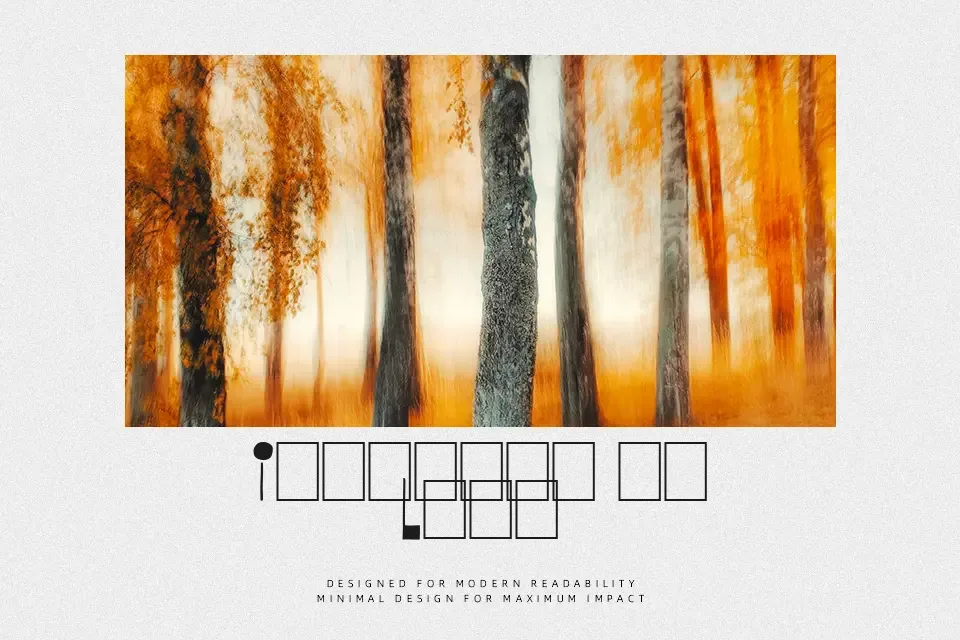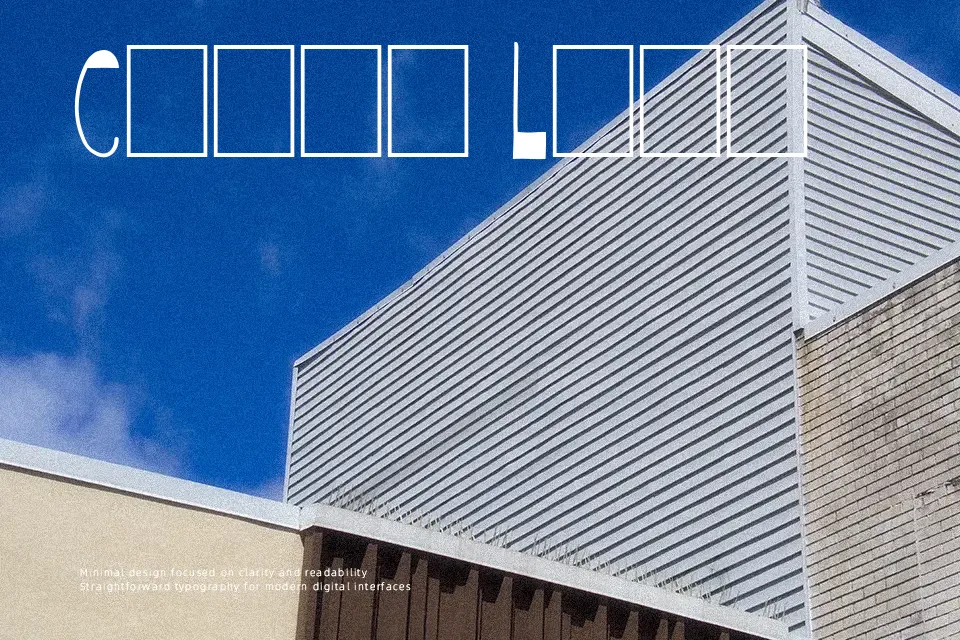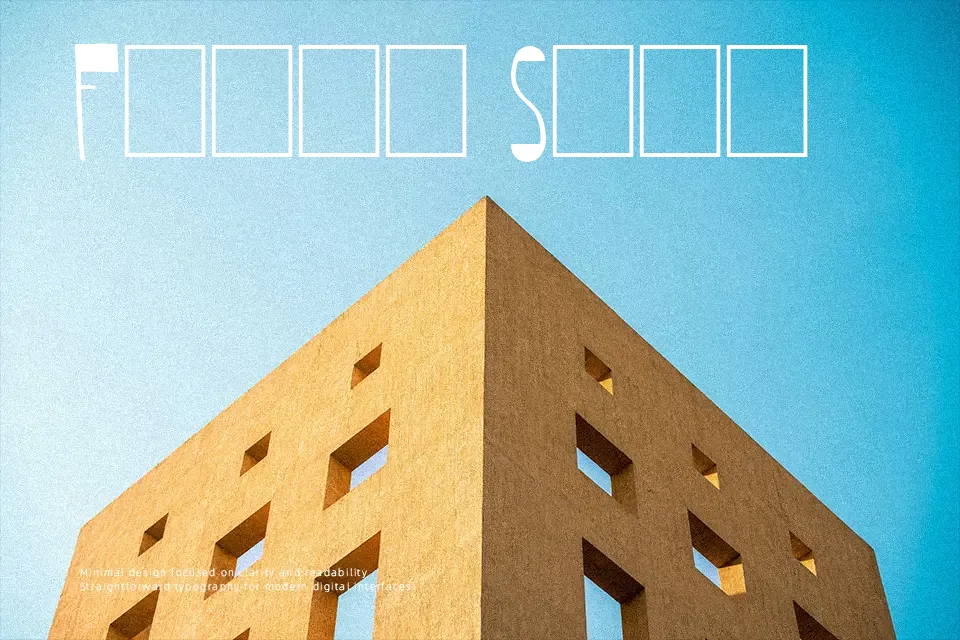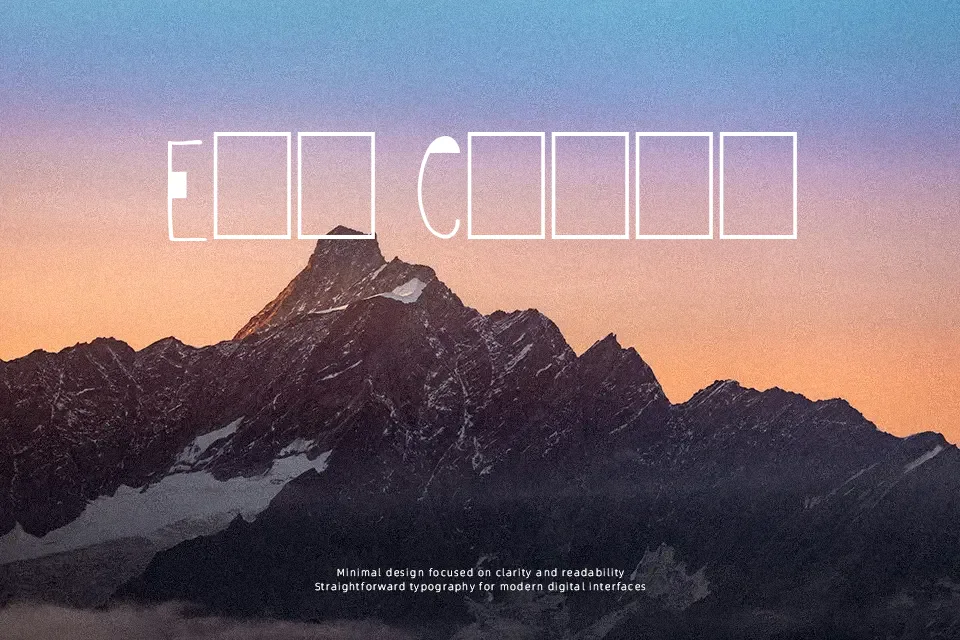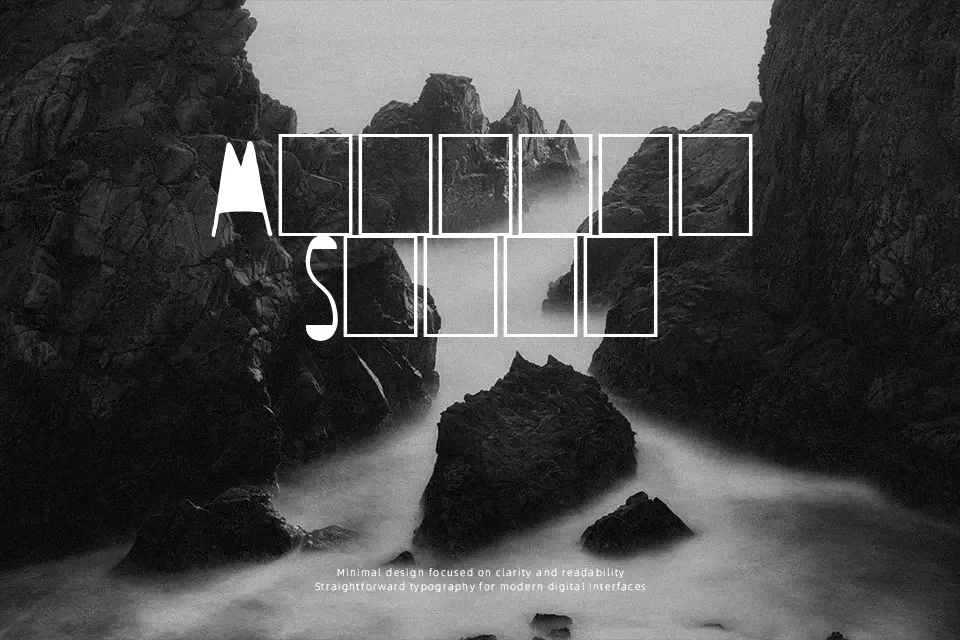
Avantgardiste 1934 Font
Designed by imagex
The strokes in Avantgardiste 1934 lean into the rigid geometry of pre-war European typographic aesthetics — clean angles, evenly measured spacing, and a structural formality that reads as both disciplined and theatrical. Licensed for personal use only, it carries a stylized display quality suited to decorative headline work rather than body copy. It fits well when the design brief calls for a 1930s salon atmosphere — think speakeasy posters, vintage fashion lookbooks, or Art Deco event branding. Where it struggles is anywhere legibility at small sizes matters: the stylized letterforms begin to lose clarity below 18pt and become problematic in body paragraphs. Designers who’ve worked with similar revival typefaces will recognize its niche — impressive in measured doses, limiting when overused.
Best For:- Art Deco-themed poster headlines
– Vintage event or exhibition branding
– Retro fashion editorial titles
– Historical-era book cover design
Not Ideal For:- Body text or long-form paragraphs
– Small-size digital UI labels
– Corporate or formal business documents
– Children’s educational materials
Perfect for advertising, branding, and editorial, with a classic and decorative style.